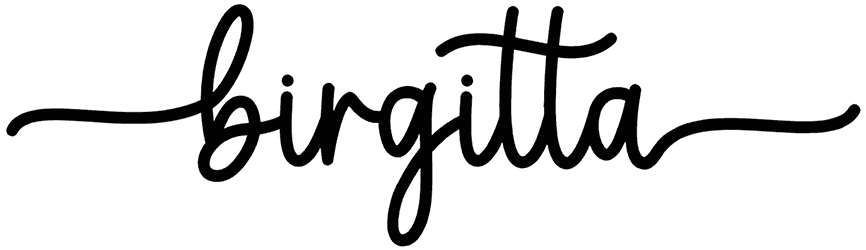
Birgitta Font
To reach the peak of triumph in designing and producing artistic work, a flawless warm neon font would be a blessing. Considering today’s selection, Birgitta comes up with a cool and amiable complete set of alphabets to embrace any flyers, greeting cards, quotes, or even main text fabulously. So, come on to bring it and let your last artwork go over with a bang.